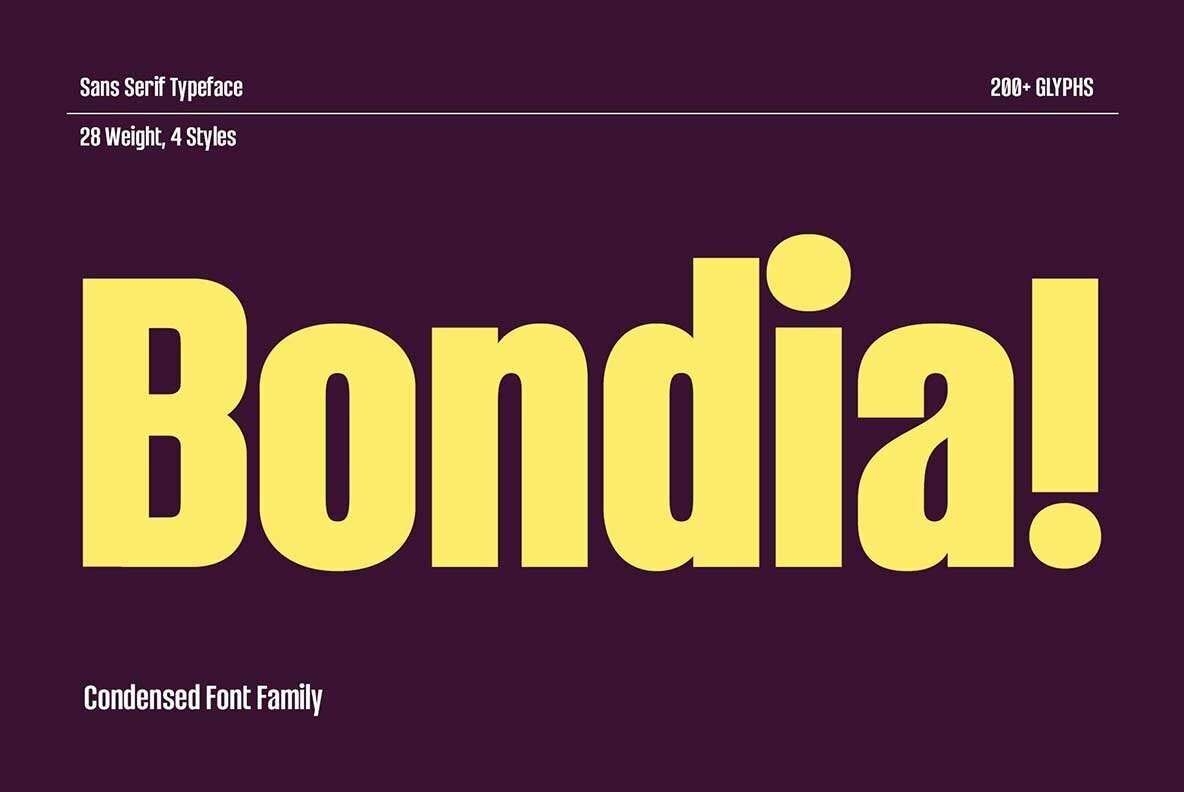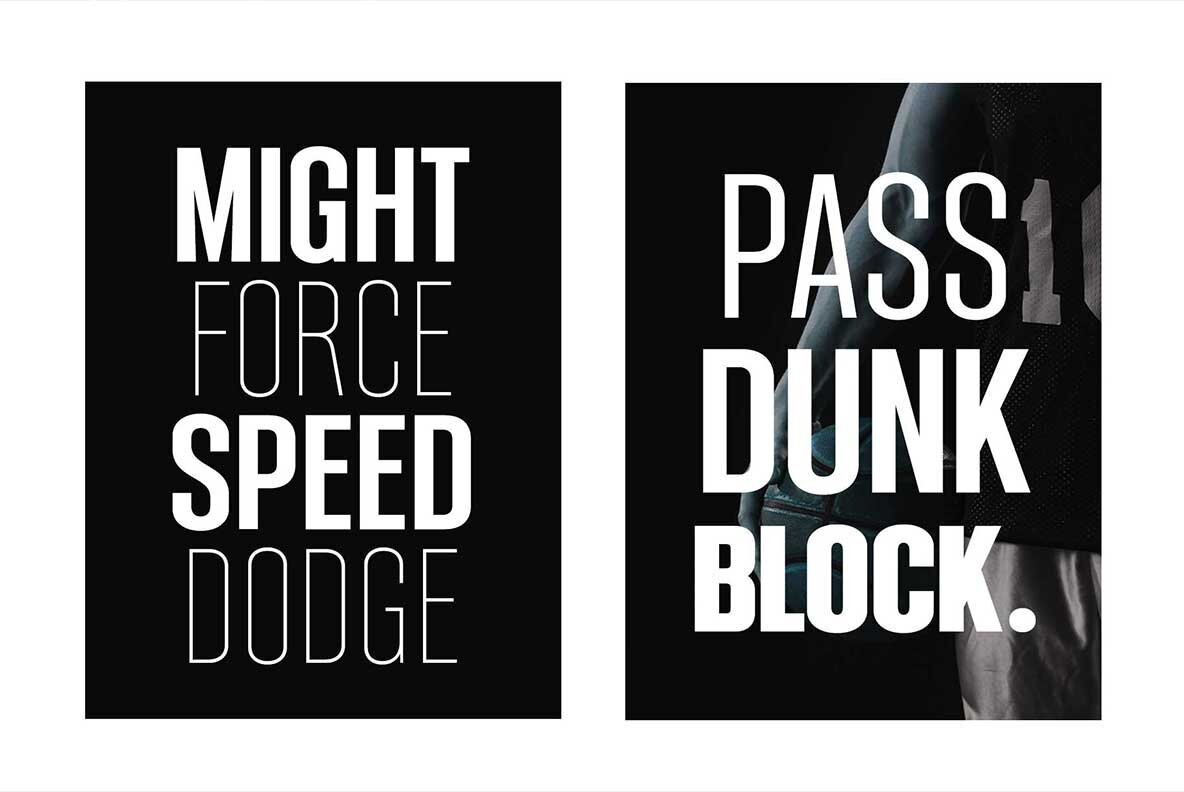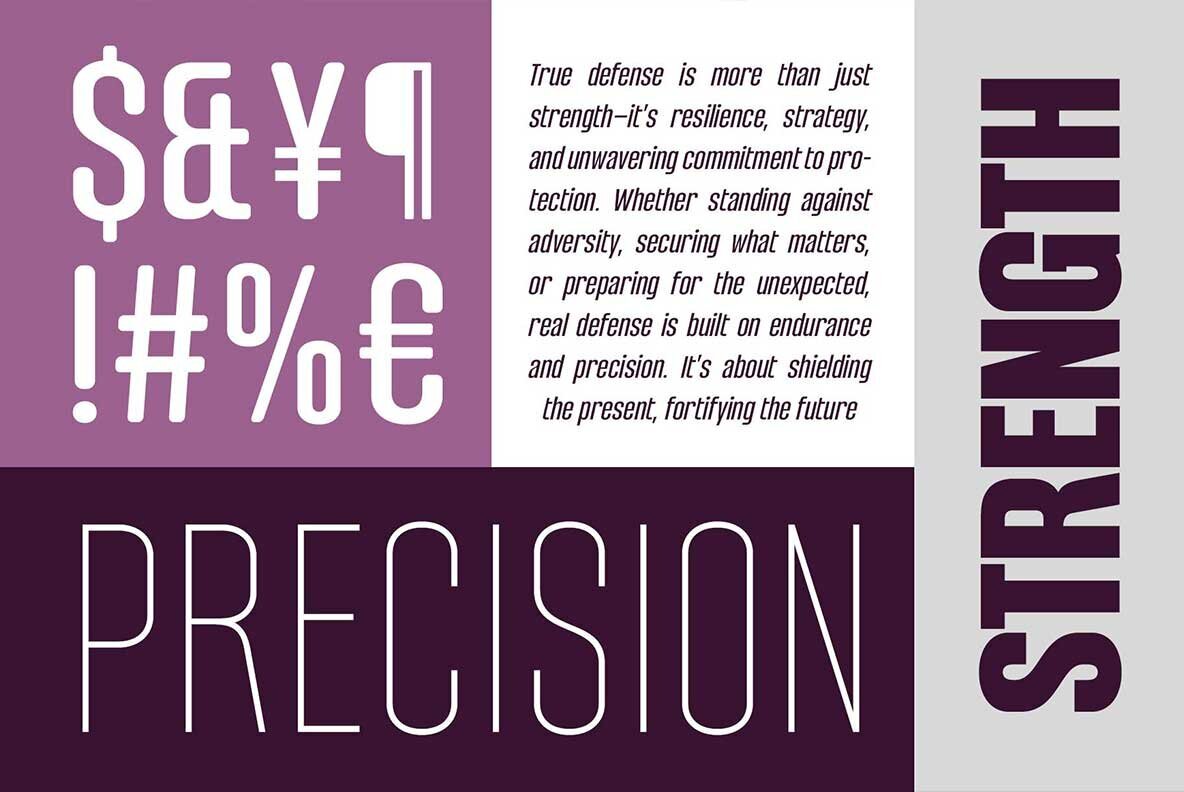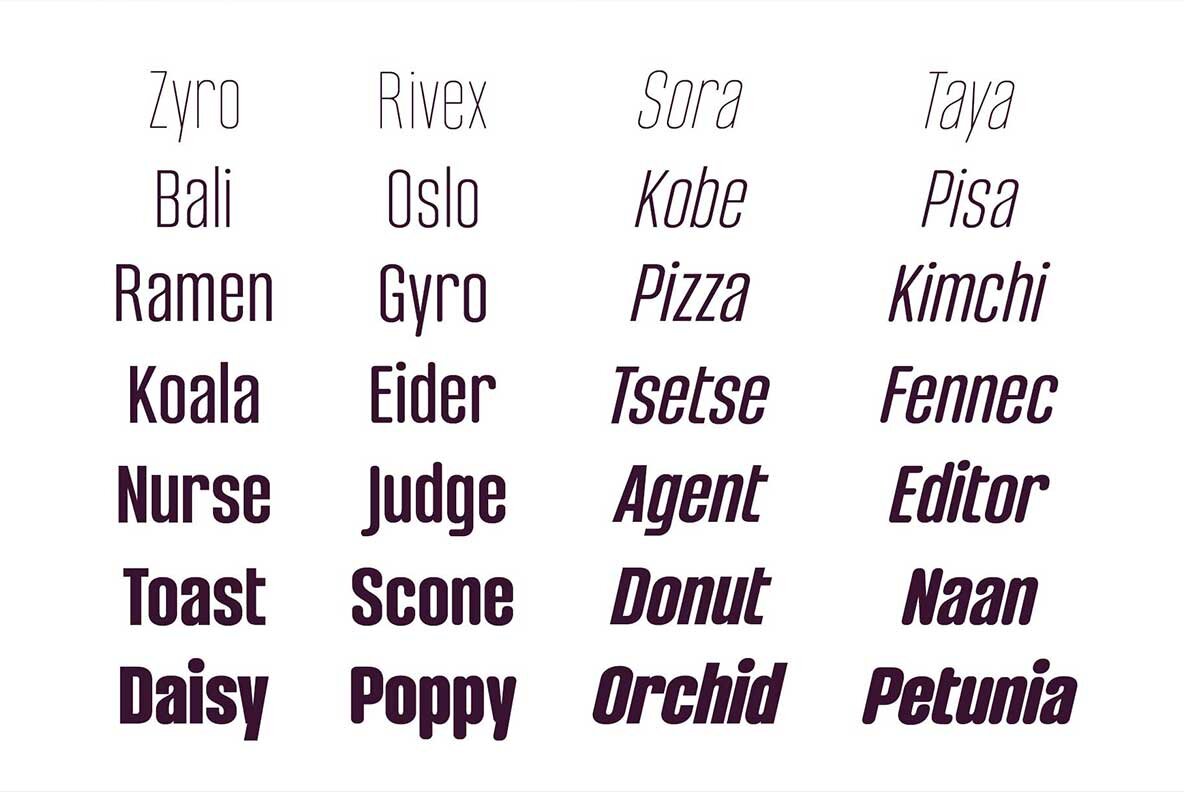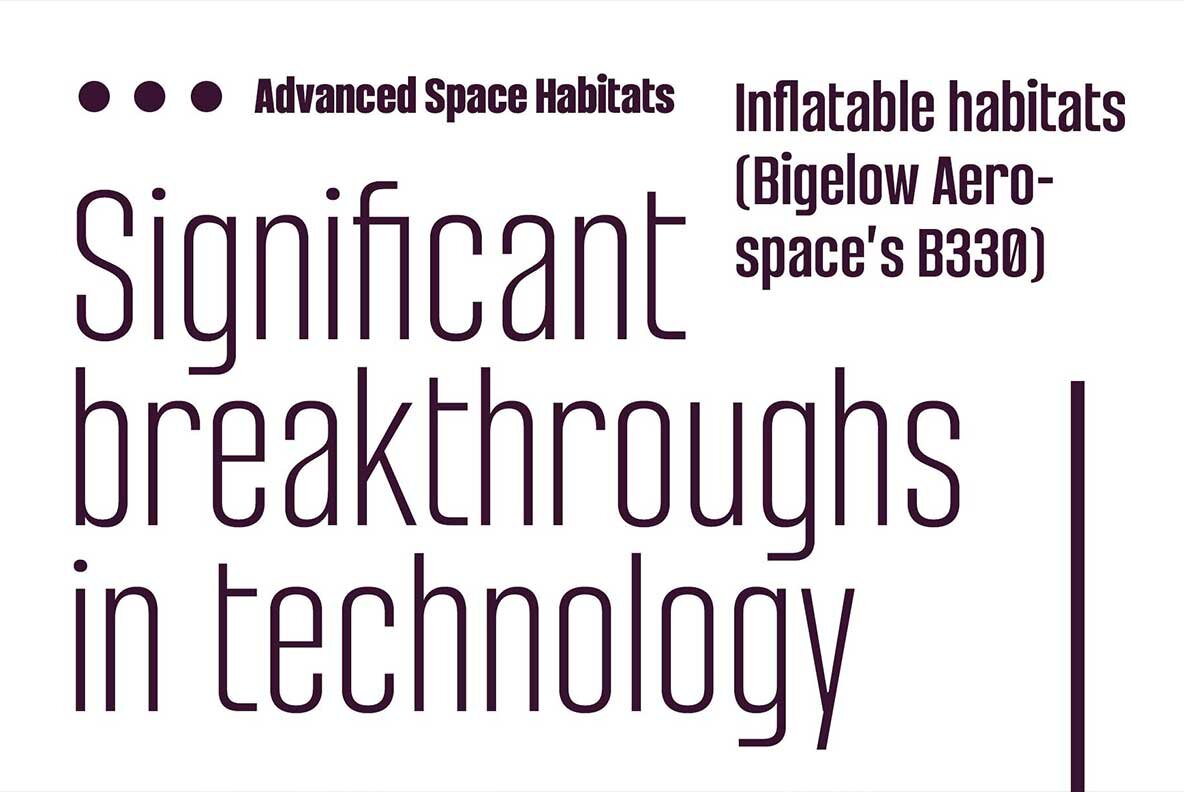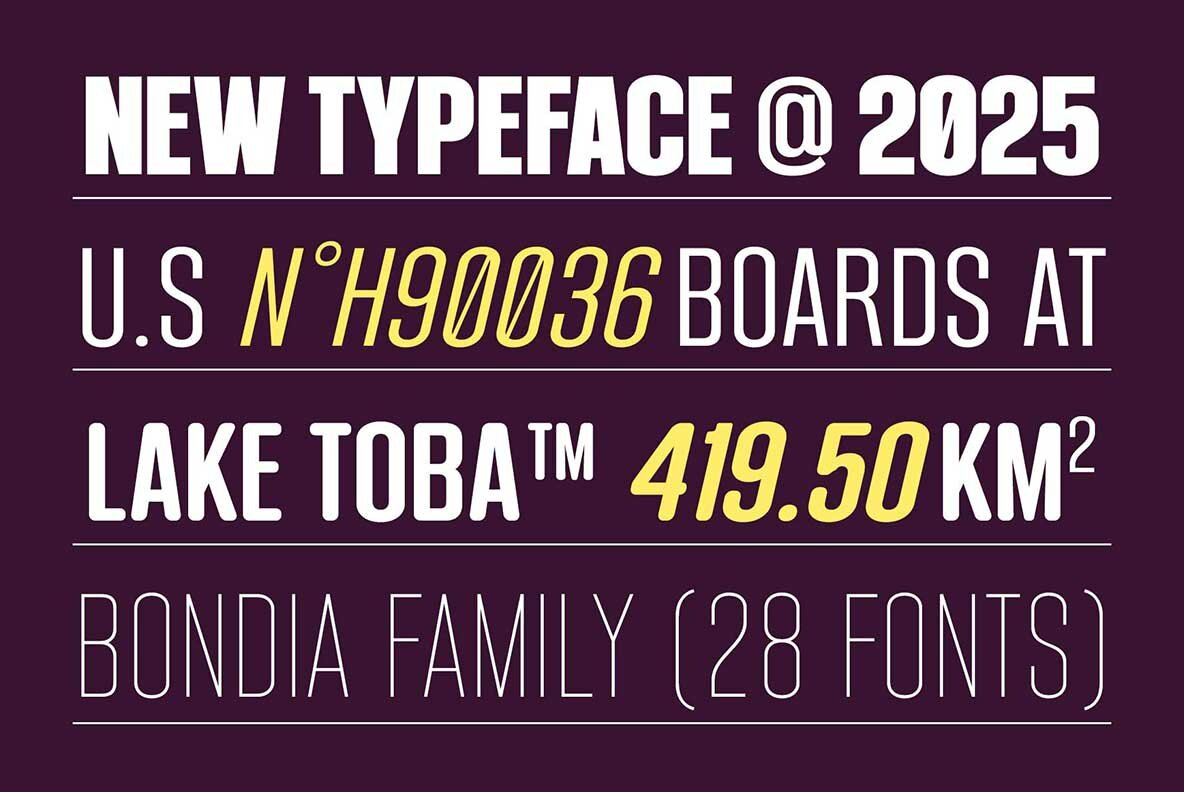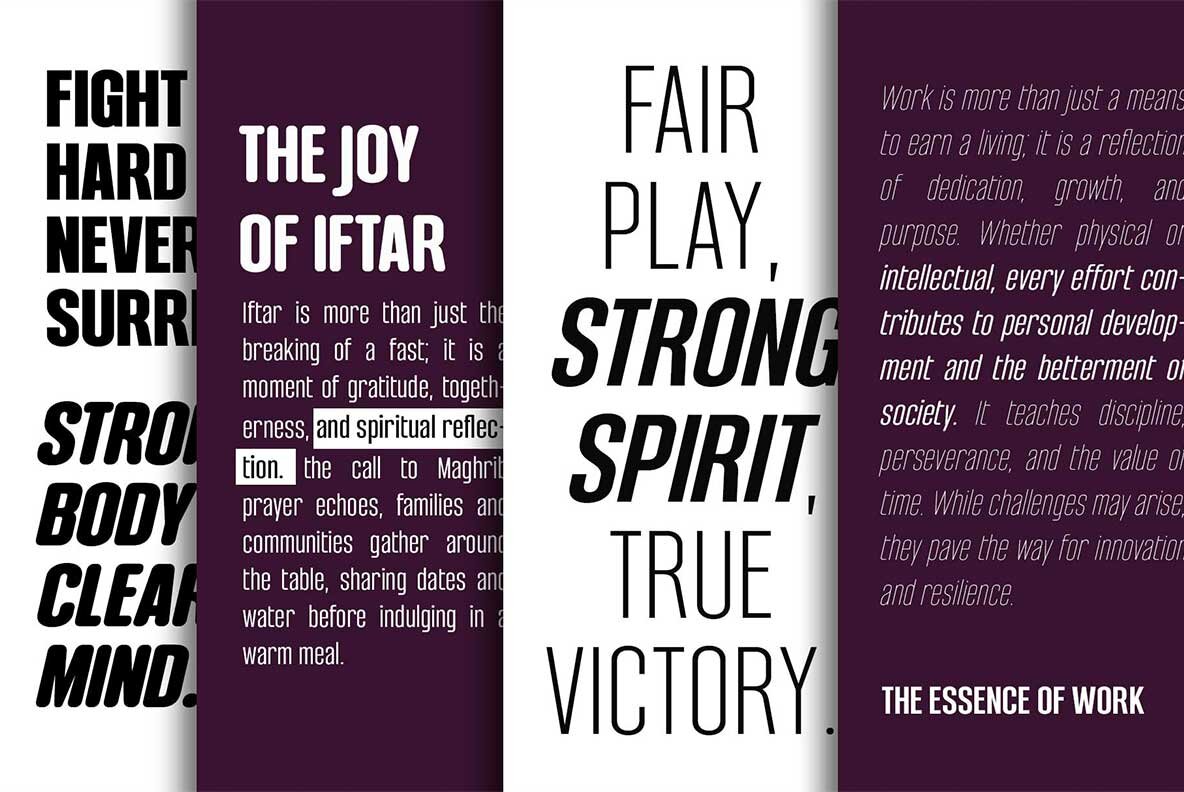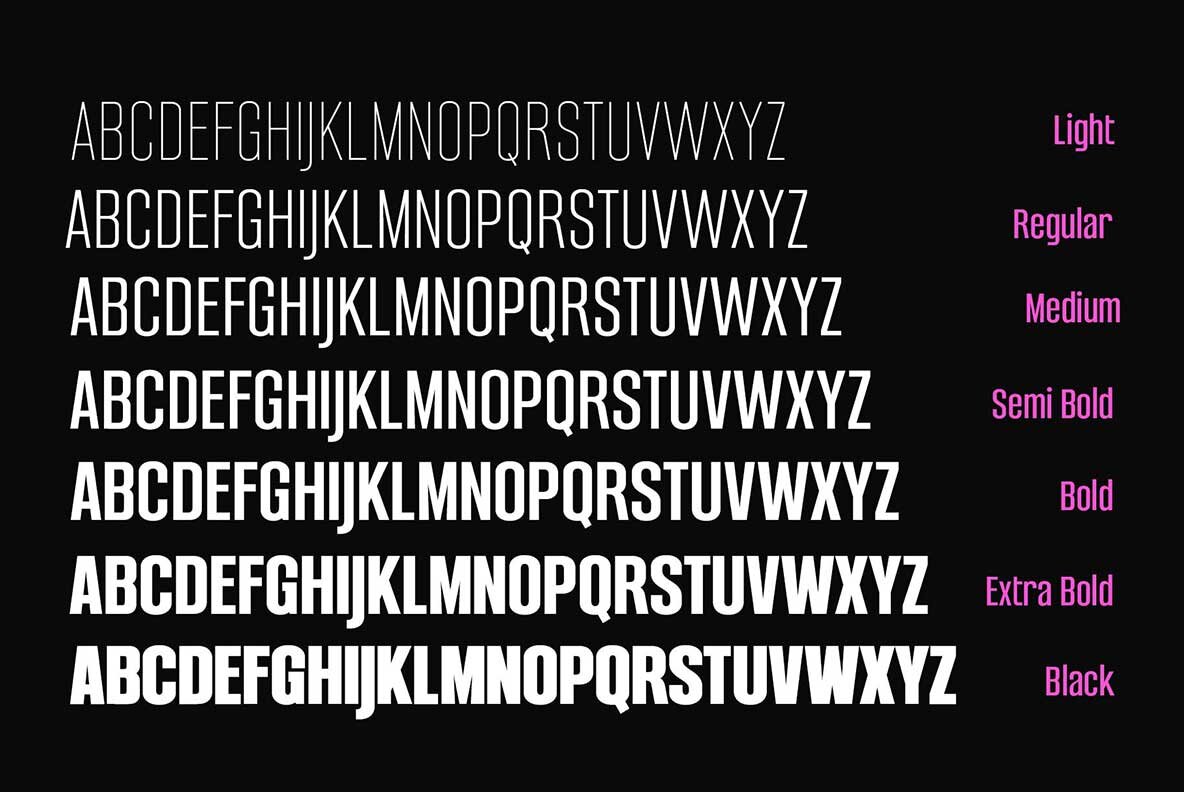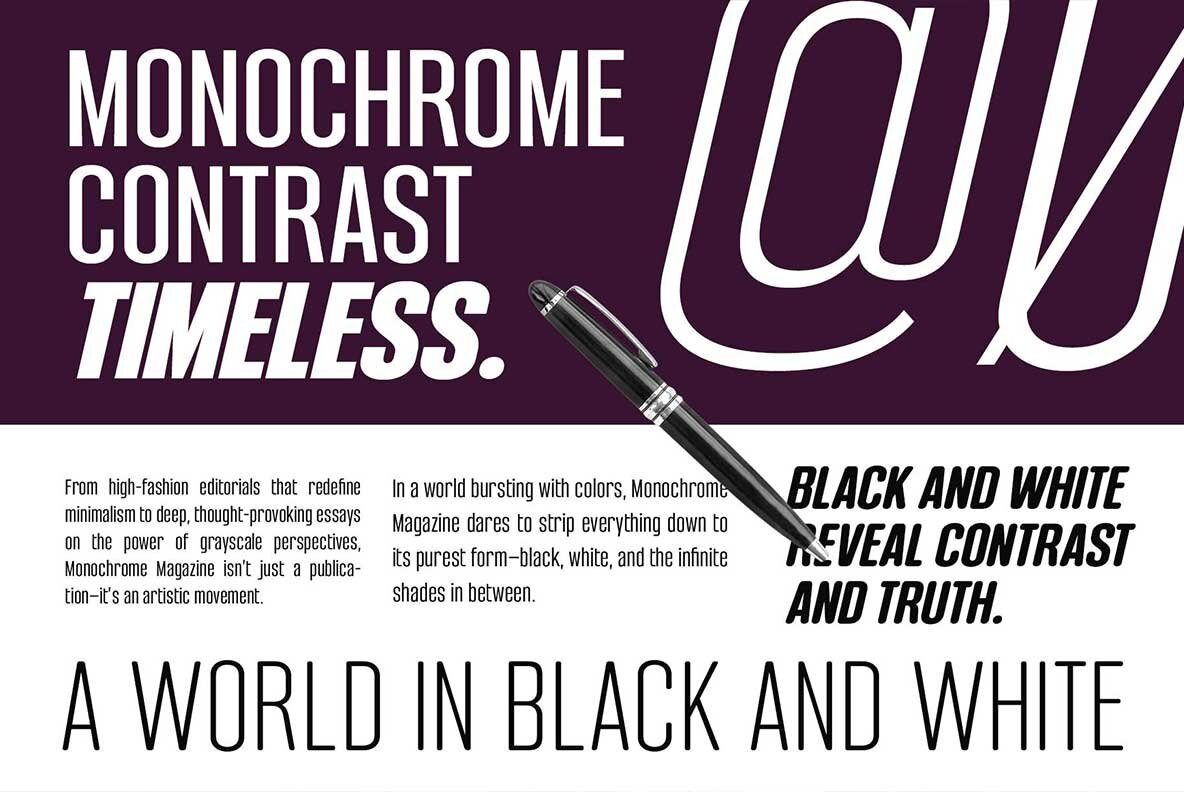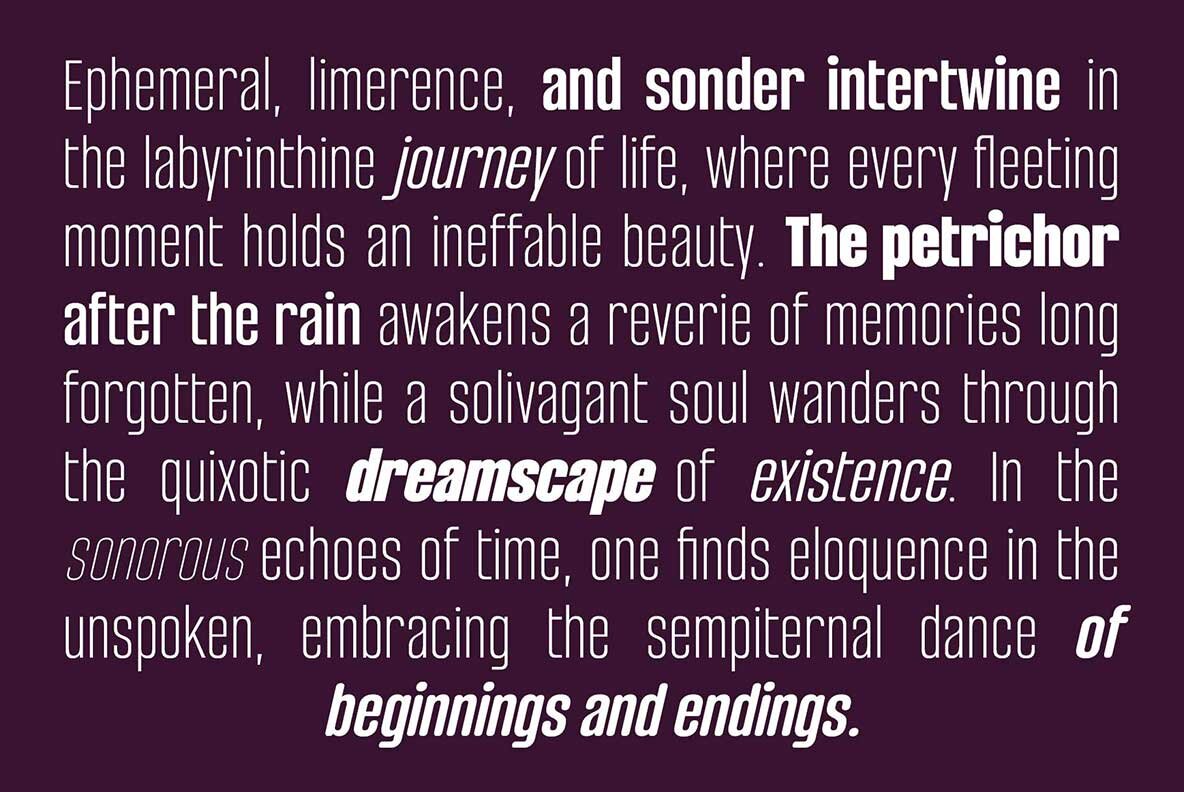
Bondia Font
Bondia is a versatile condensed sans serif typeface that expertly intertwines elegance, strength, and modern allure. Designed with both impact and readability in mind, Bondia offers 7 weights and 4 styles, providing ample flexibility for diverse design projects. Its sleek and narrow structure delivers a sporty, futuristic vibe, making it an ideal choice for bold, stylish visuals. From lighter to semibold weights, Bondia ensures clarity and readability in body text and subtext. Meanwhile, its bolder weights convey a powerful presence in headlines and statement pieces. Whether you're designing branding materials, posters, editorial layouts, or product packaging, Bondia infuses a sharp, contemporary edge into any project.Bondia: A Dynamic Sans Serif